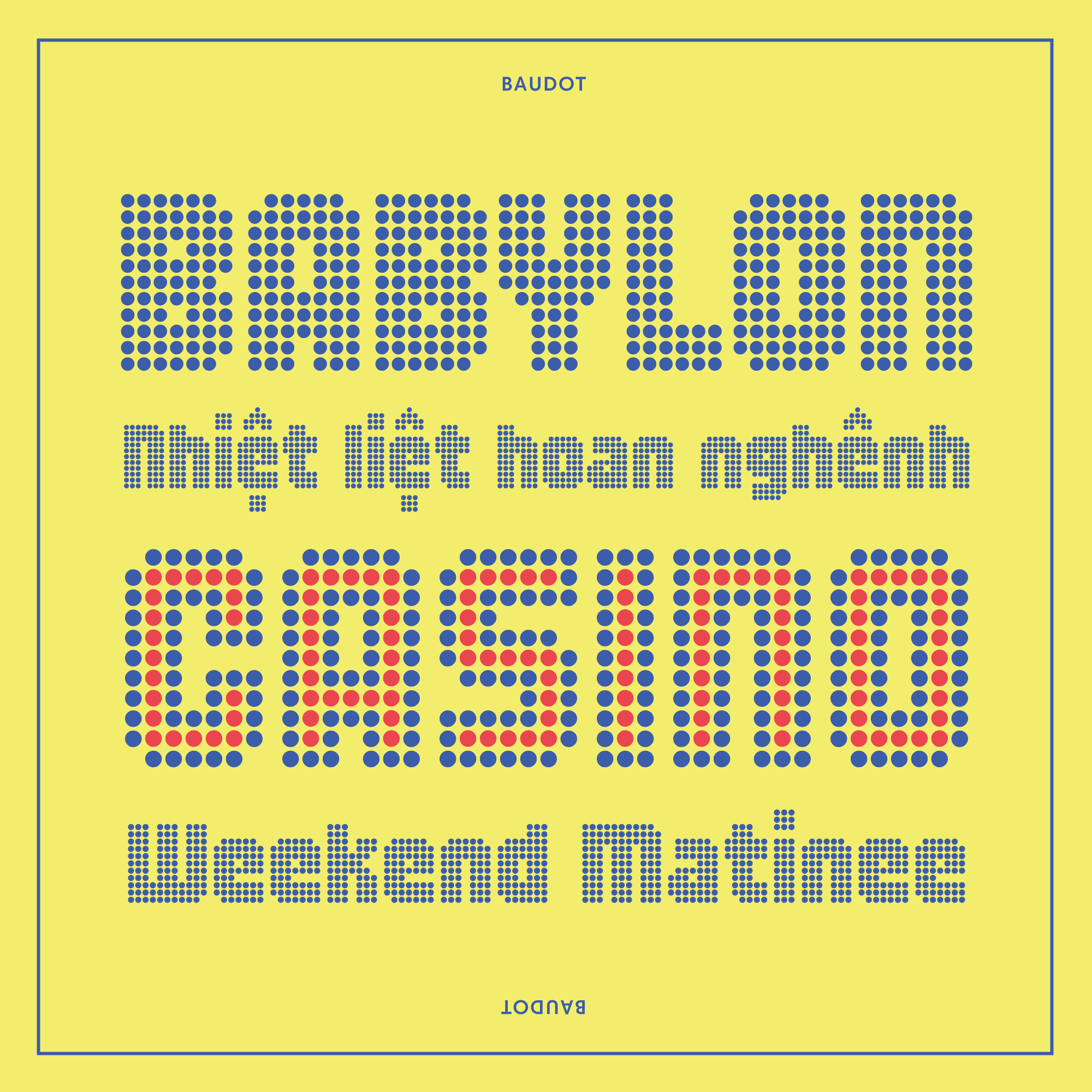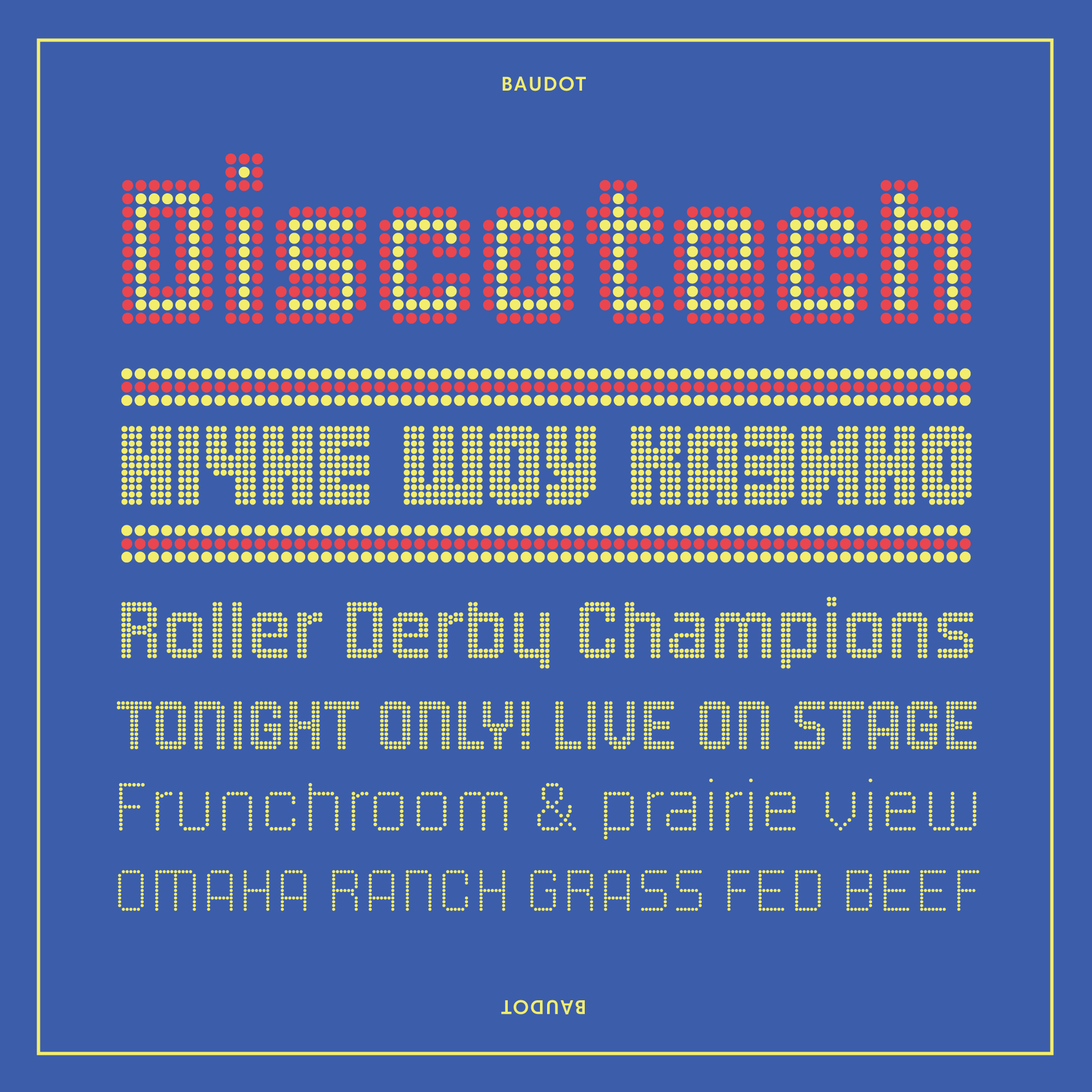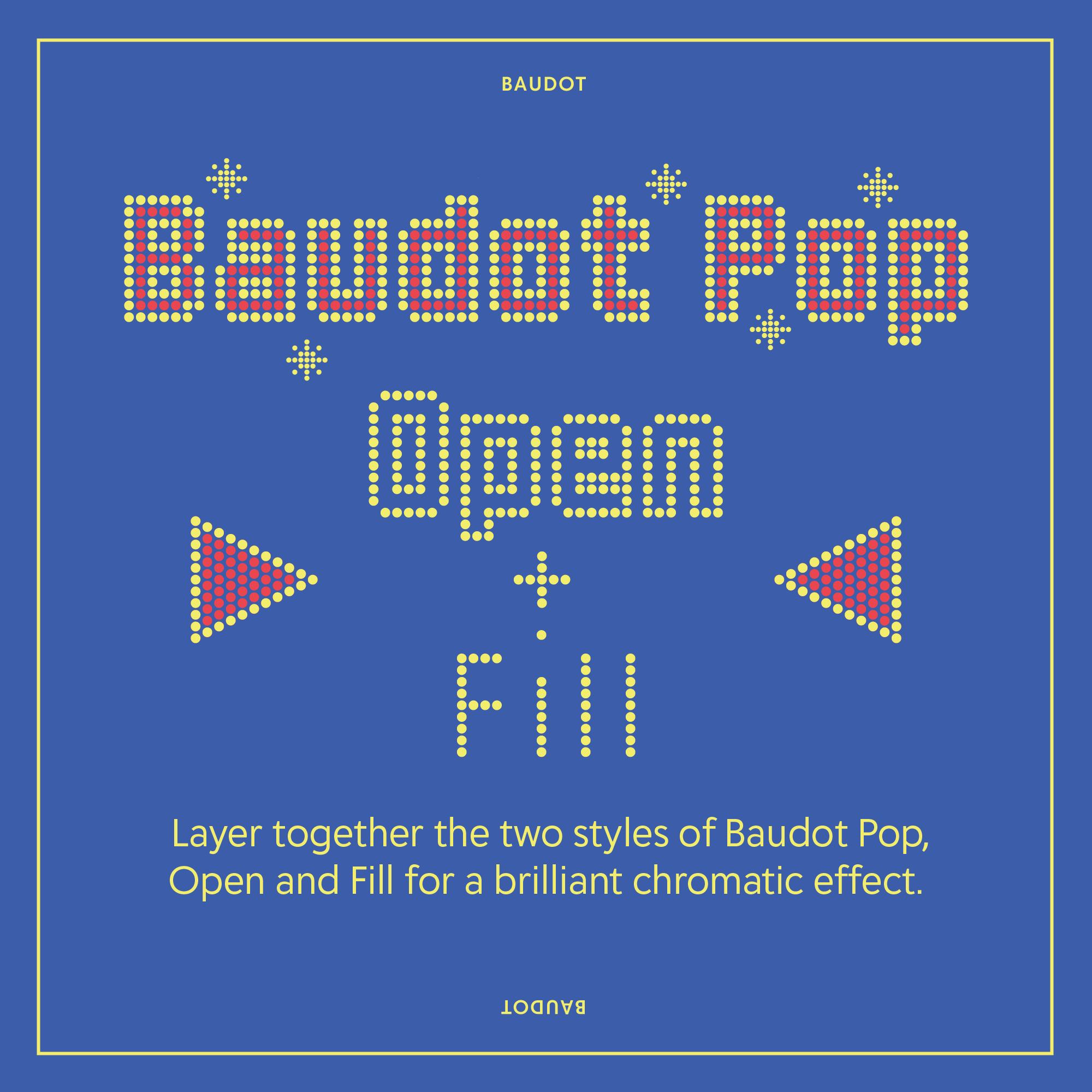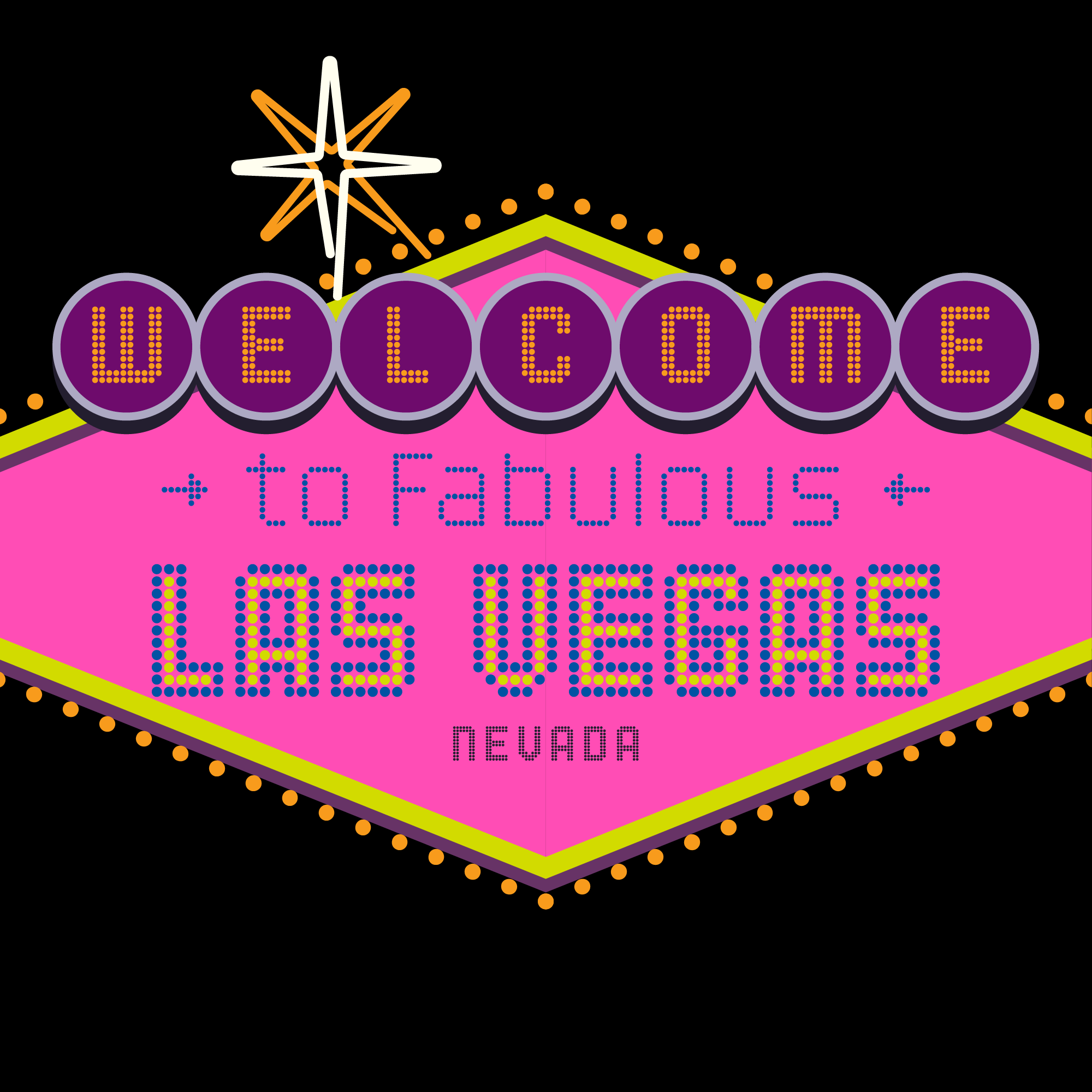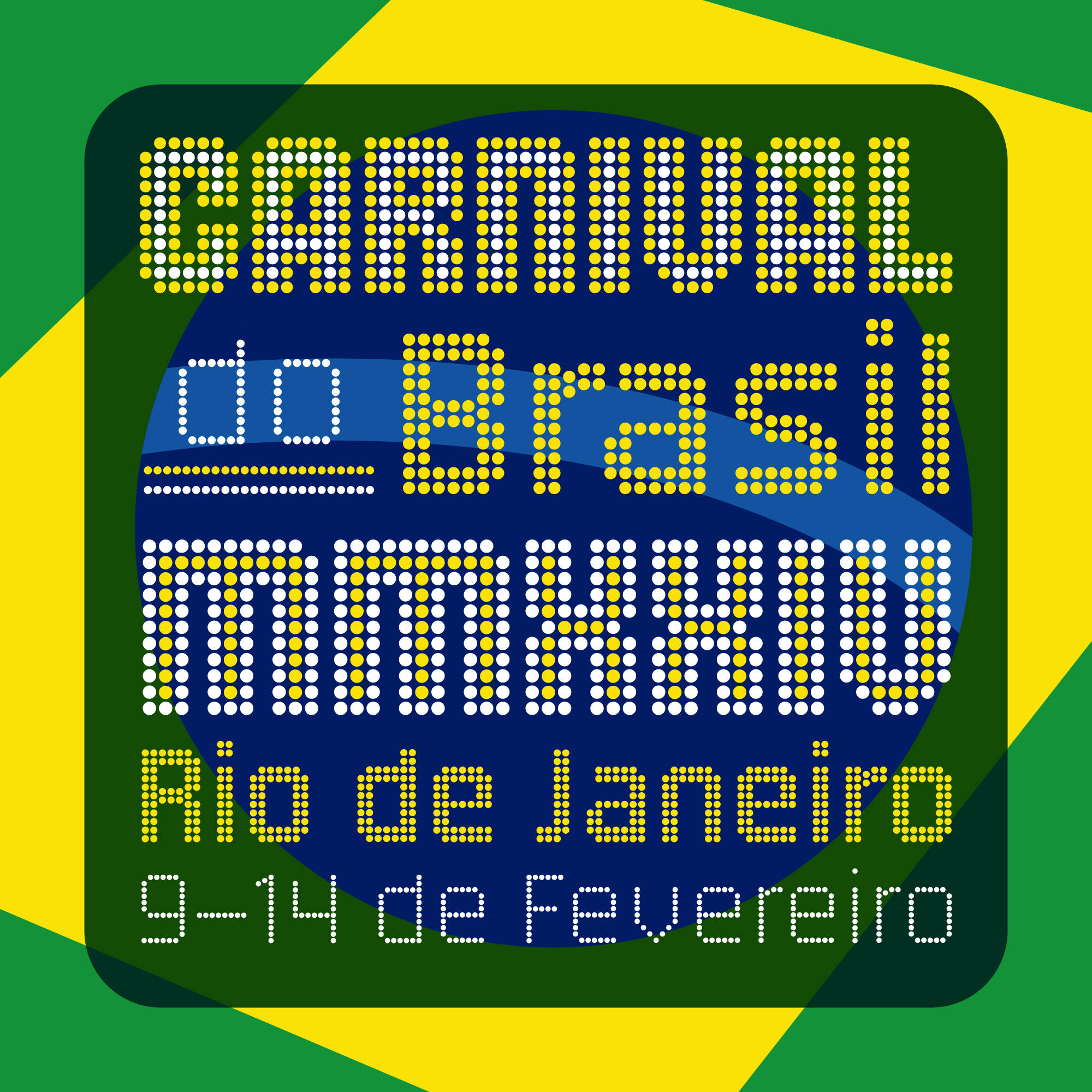
Baudot
Inspired by the bright lights.
Designed by François Robert
For a chromatic effect, layer the Open and Fill versions of Baudot Pop. Here's how:
Create a new layer using Baudot Pop Fill. -
Copy the first layer, creating a new one in the same position. Change the font to Baudot Pop Open. -
Change the color of the font on each layer as you like it. And that's a wrap! Mic drop and exit stage left.
Story
The story of Baudot [boˈdo] begins in 1968, in Milan Italy. François Robert was inspired by the bright lights of Las Vegas to create a headline alphabet embodying the appeal of glitzy entertainment of that period with the idea for its use possibly like that of a marquee to announce upcoming showtimes.
Robert’s entry was selected for publication in an open call for submissions of new type designs and subsequently released as dry transfer type (a.k.a. rub-down type) under the name “Chicago”, which went on to grace magazine covers, posters, albums, and books throughout the 1970s and early 1980s.
As digital font technology arose, Robert’s Chicago was left behind and new (unrelated) typefaces were later published under the name Chicago, most notably the bitmap font on the original Macintosh system. Fast-forward to the fall of 2022, Jean-Benoît Lévy introduced Robert to Delve Withrington, kicking off a collaboration to produce Robert’s original design again, from scratch, and re-imagined for the 21st century.
The resulting type family — with the new title “Baudot”, which is a nod to Émile Baudot and his 1872 invention of Baudot code, a precursor of ASCII — is comprised of three weights: Light, Regular, and Bold, plus two styles for color layering: Baudot Pop Open and Baudot Pop Fill. While Baudot is primarily a grid-based design, it strays from that rigidity selectively by utilizing offset positions as a second grid in some instances to reduce gaps in strokes and to achieve a more consistent representation of design intent across the typeface. As one would expect of today’s fonts, Baudot has handy OpenType features and a broad glyph repertoire of over 900 glyphs supporting 329 languages, including Vietnamese, Greek, Cyrillic script, plus Baudot Code ITA-1.
Baudot is certain to add some dazzle and delight to any headline or dropcap treatment, especially with the layering option employed for a flashy chromatic effect. •!•
Features
Additional features include: Standard Ligatures, Fractions, Ordinals, Slashed Zero, and Stylistic Sets.